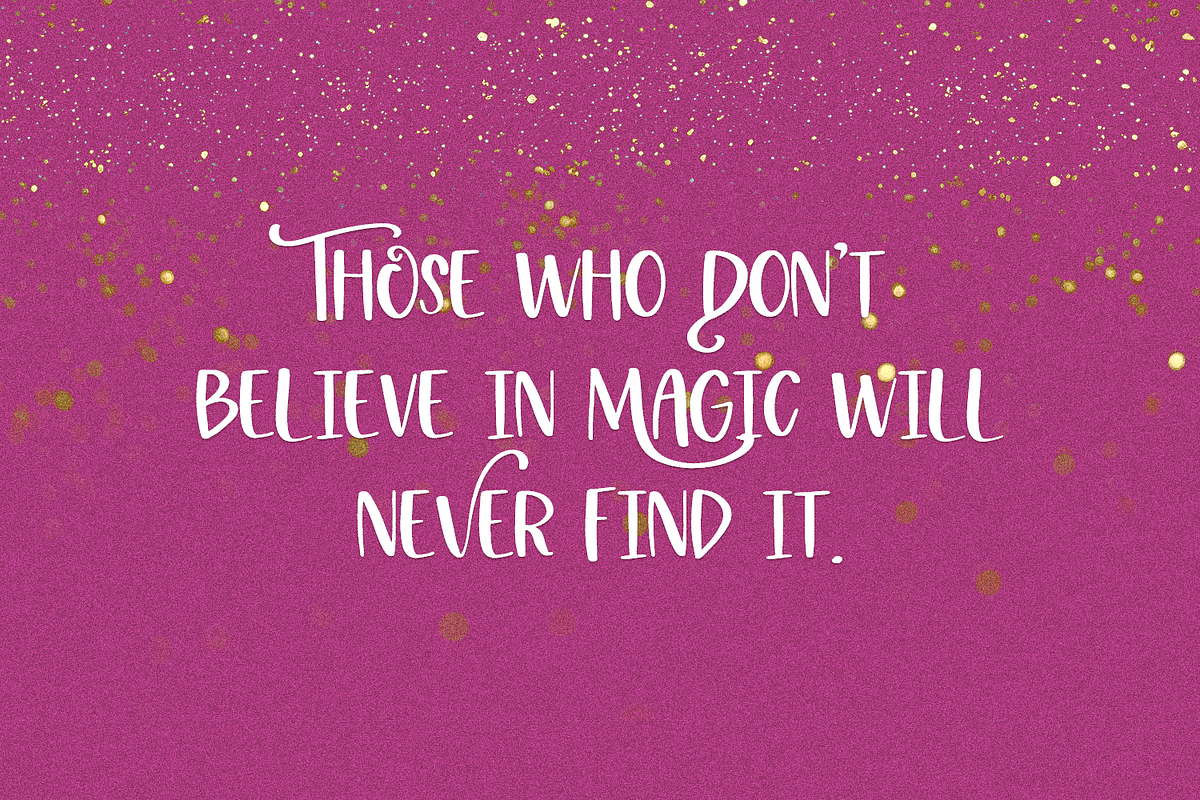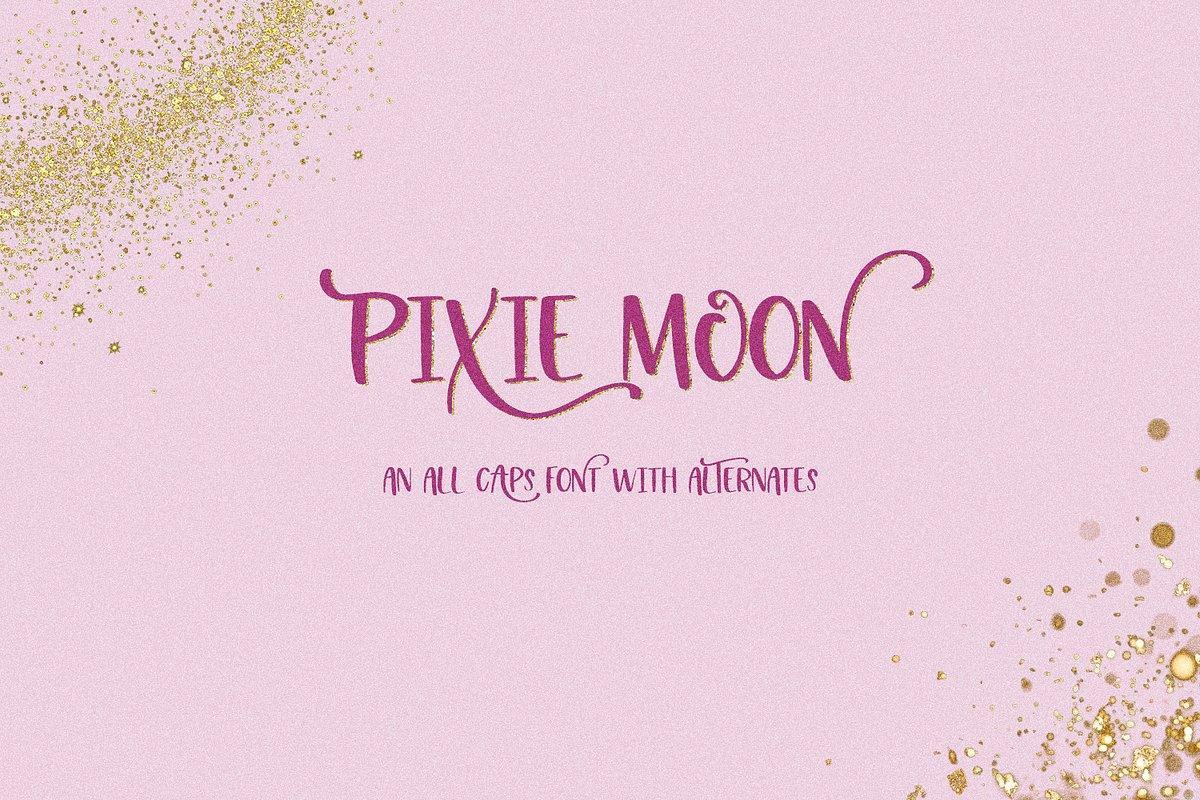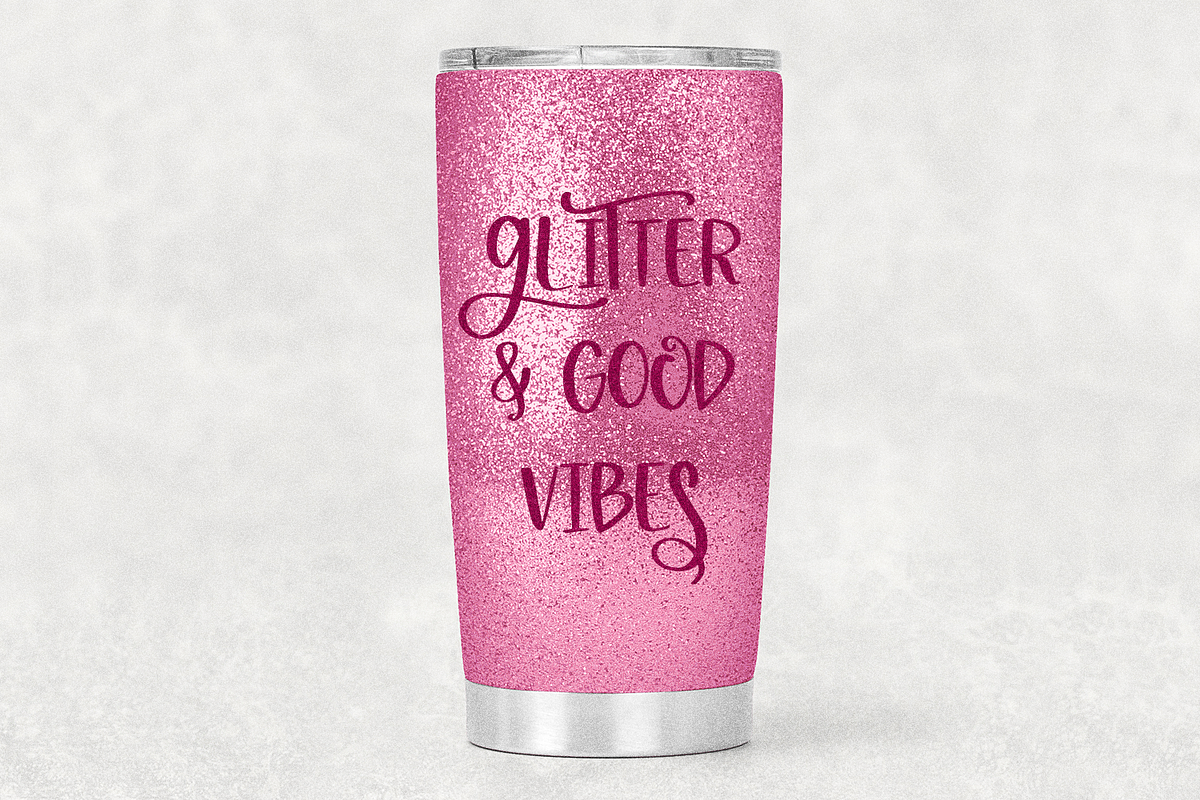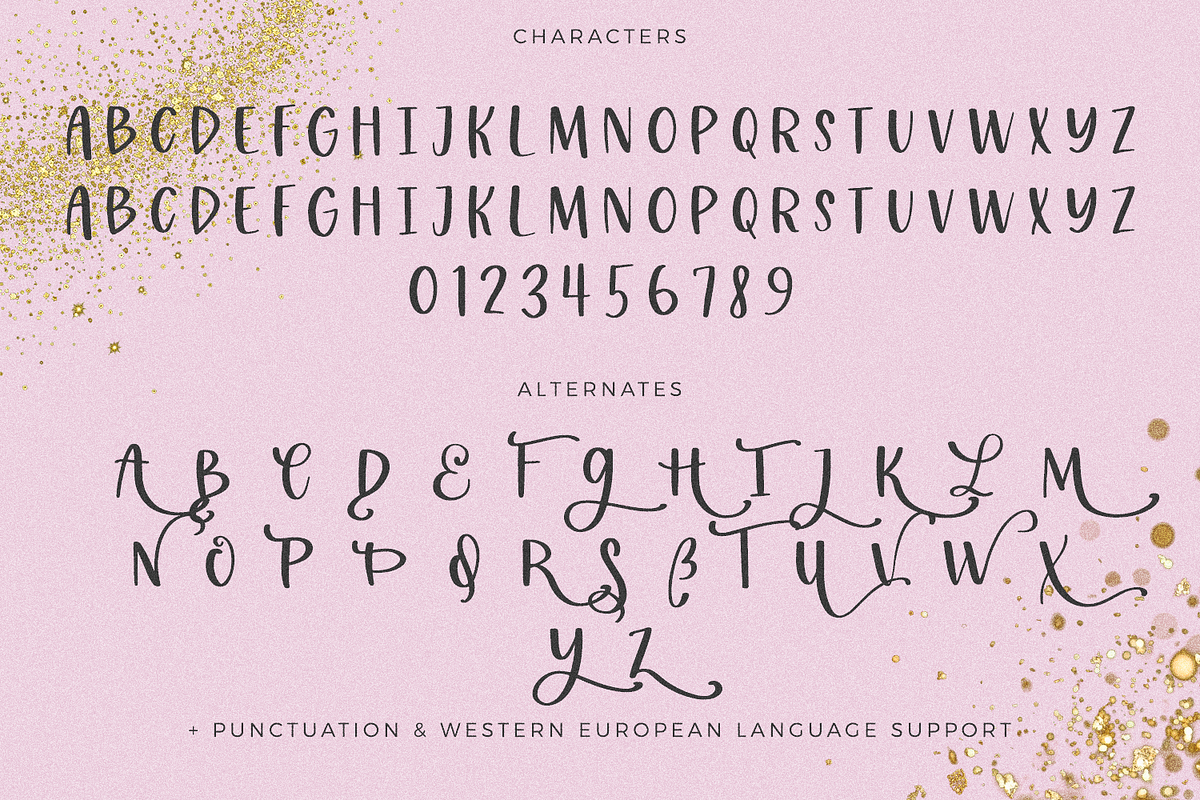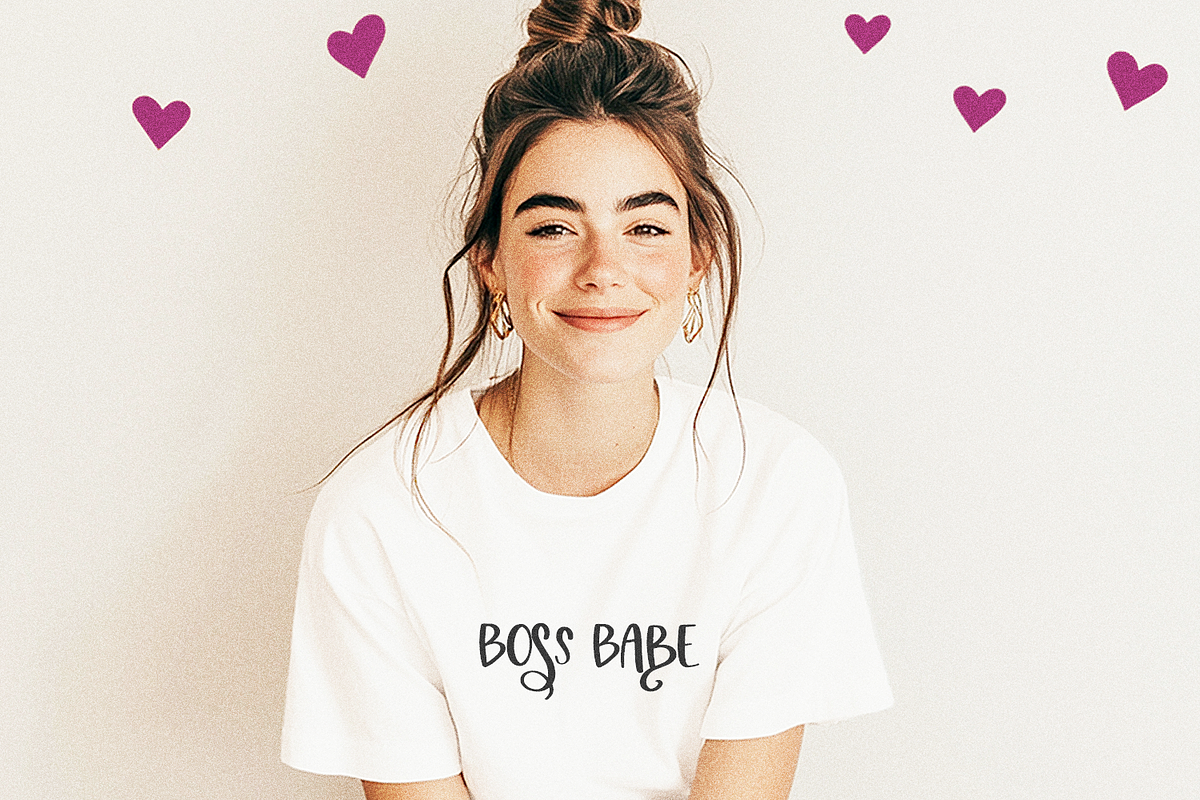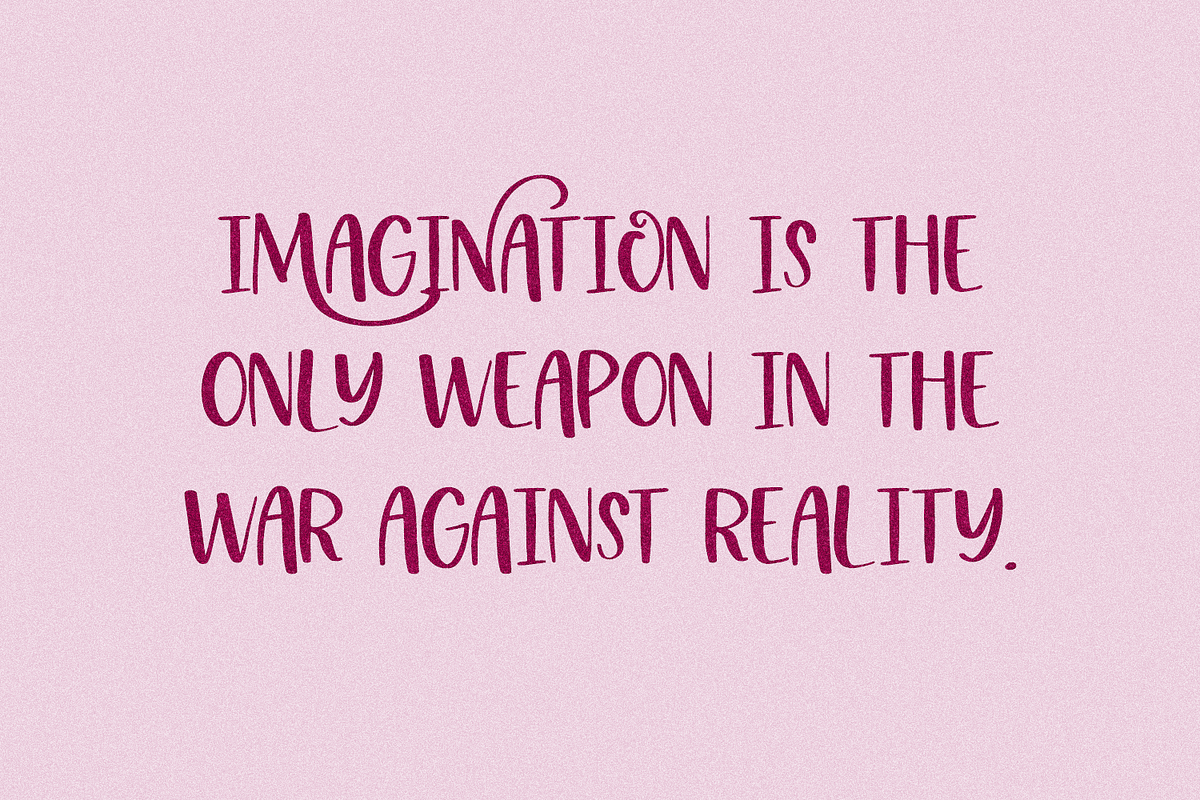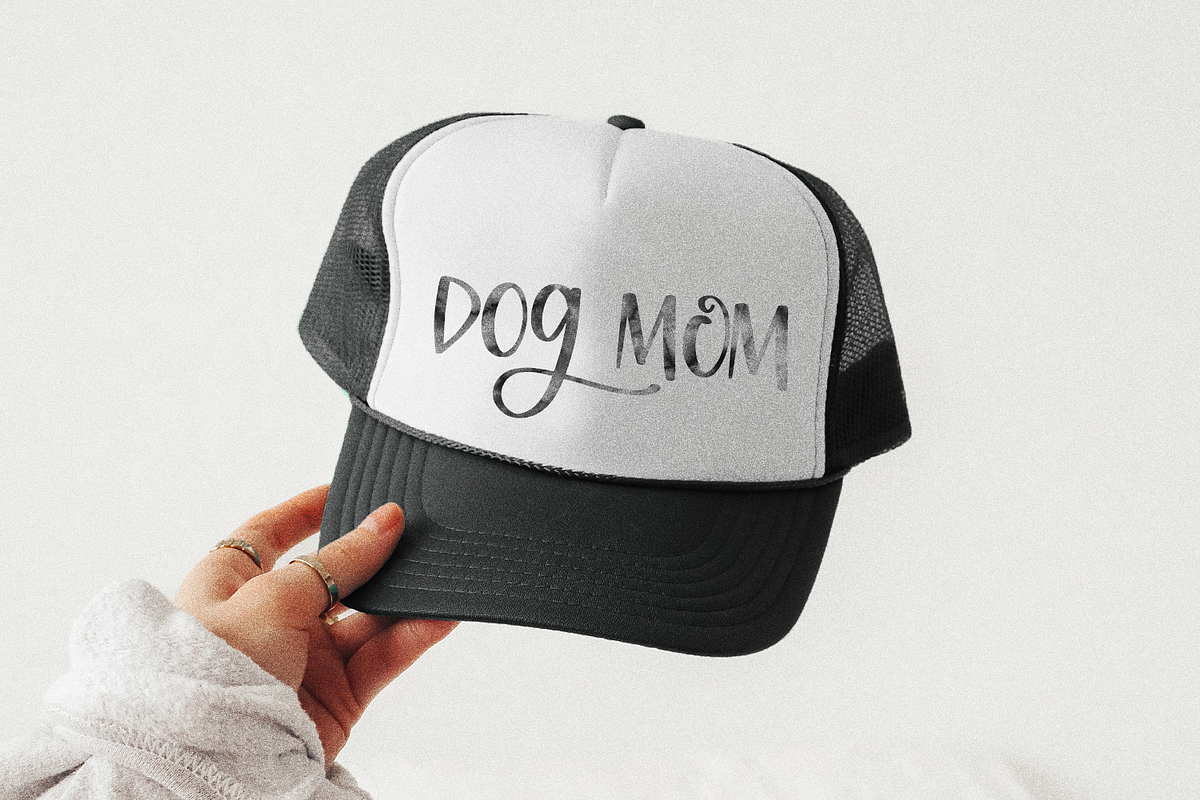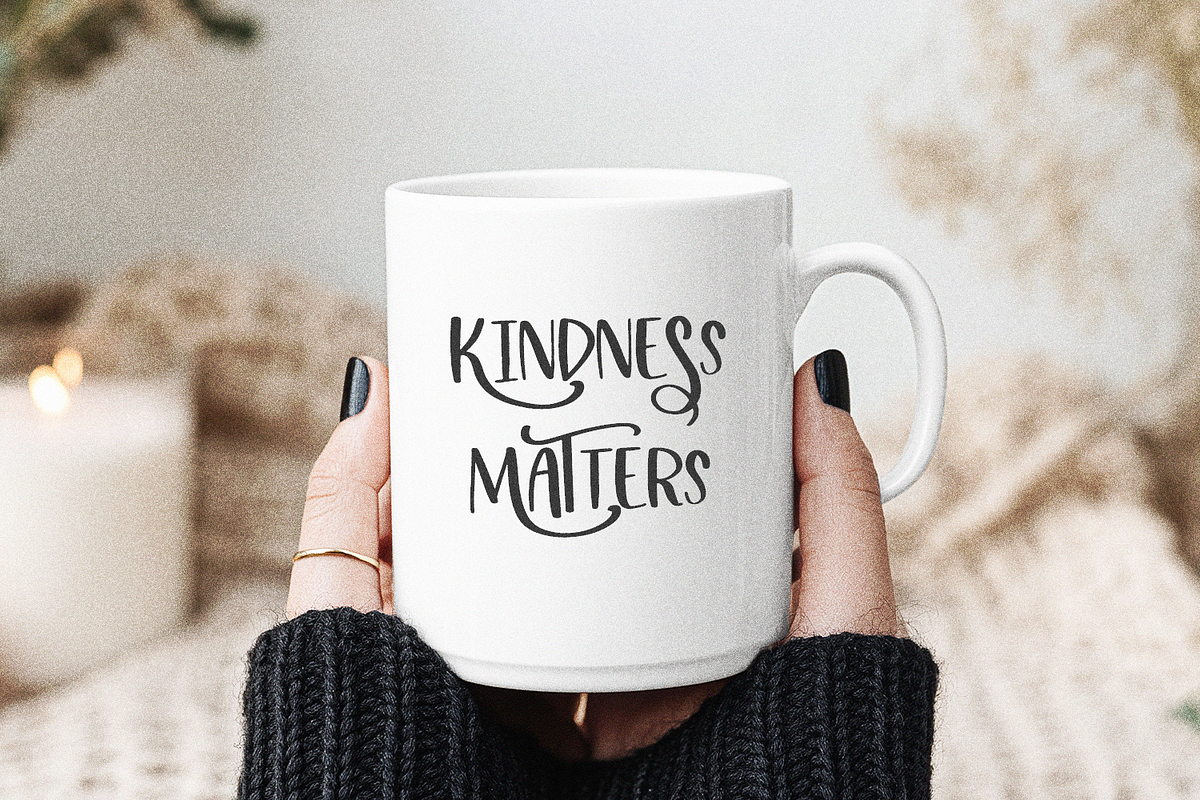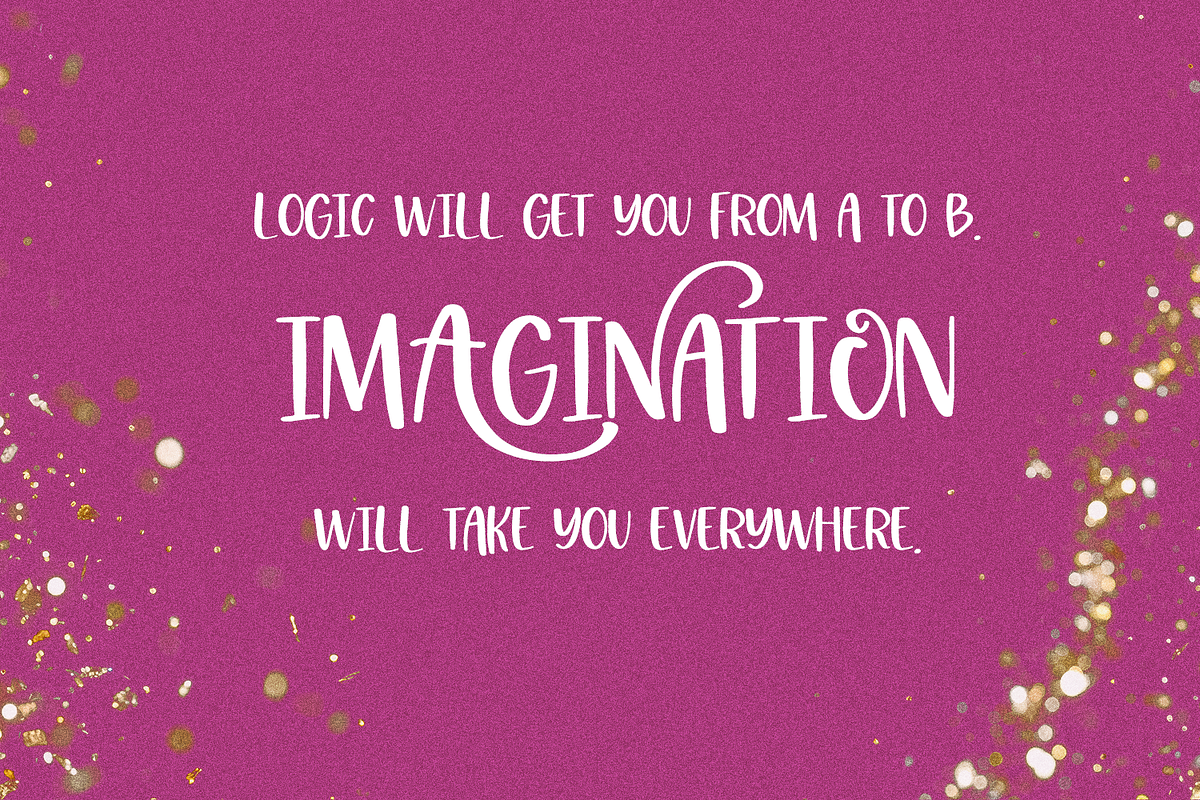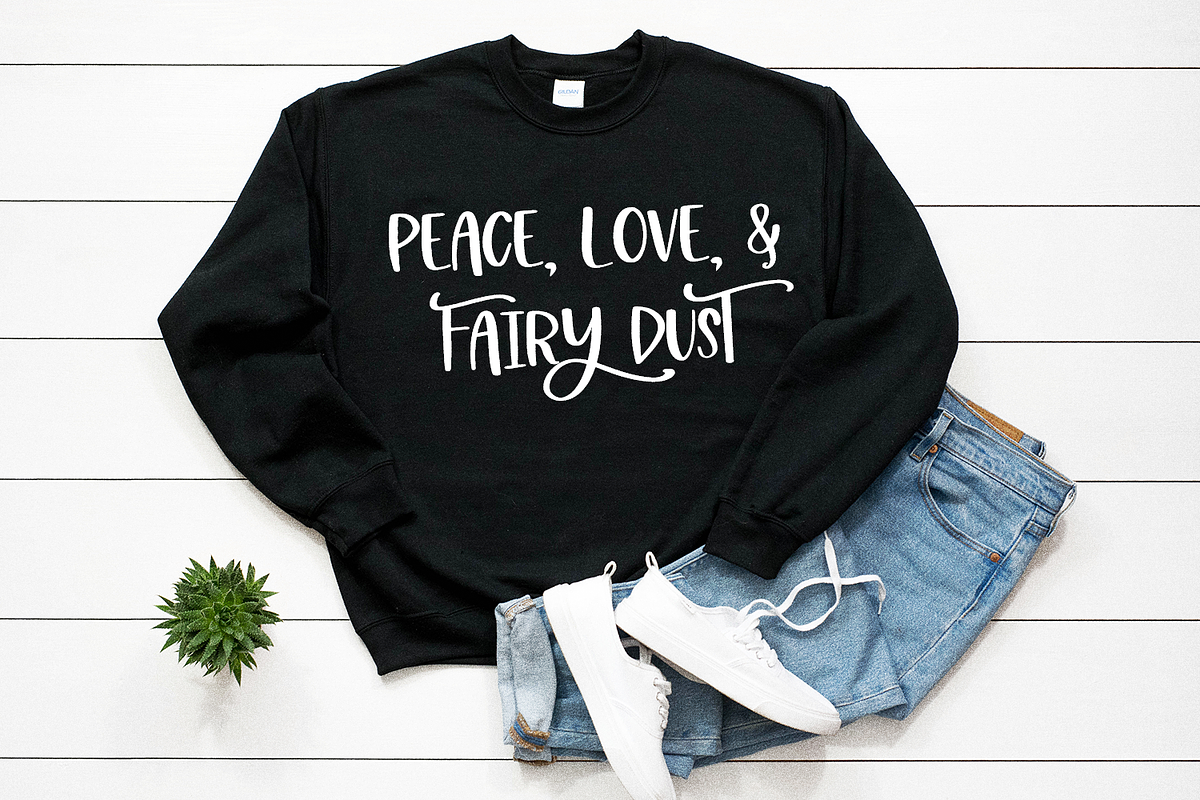
Pixie Moon Handwritten Sans
Pixie Moon Sans is an all-caps hand lettered font. This font includes flows, flourished alternate characters that add a whimsical, fairy-like aesthetic. This font is fantastic for logos & branding, greeting cards, painted banners, digital planners, note-taking apps, Canva, Cricut projects, Silhouette projects, designing SVG files, laser cutting projects, & more.
Pixie Moon Sans includes:
- full upper + lowercase characters
- numbers + punctuation
- 28 alternate characters
- Western European language support - English, French, Spanish, Portuguese (Brazil), Portuguese (Portugal), Italian, German (Germany), German (Austria), Dutch, Danish, Swedish, Norwegian (Bokmål and Nynorsk), Finnish, Icelandic, Irish, Welsh